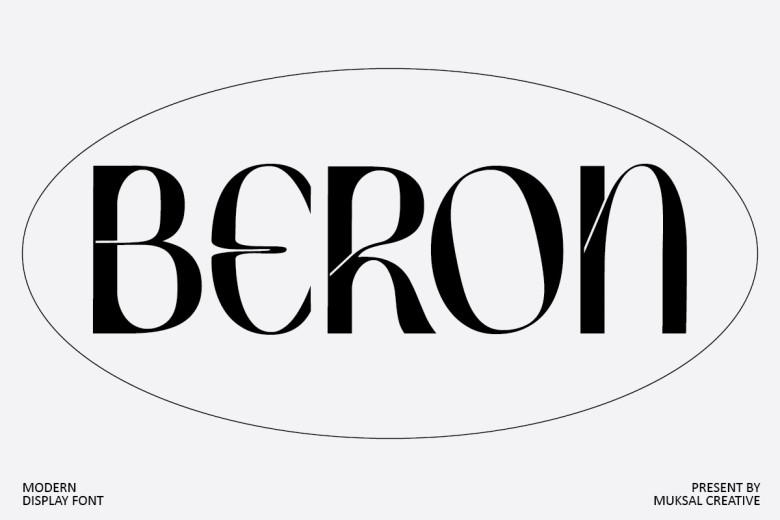
Beron Font
Displaying Beron font style asone of the vintage-inspired font on your design will surely evoke some nostalgia. It is very suitable for editorial projects, logo design, clothing branding, product packaging, magazine
Beron Display Font